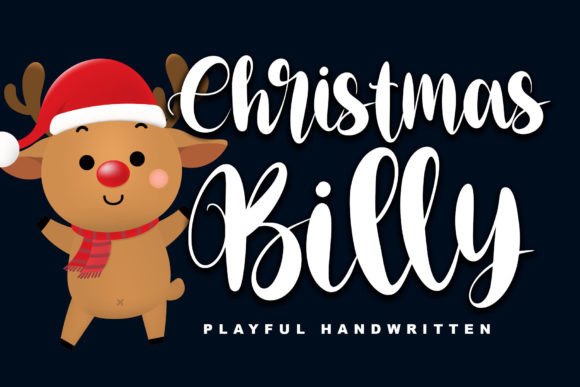
Unleash the Magic of Christmas with Christmas Billy: The Font That Captures the Essence of Yuletide Cheer!
In a world of monotonous fonts, Christmas Billy emerges as a captivating script font, skillfully crafted by the ingenious mind of thomasaradea, to bring the spirit of Christmas alive in your designs. Its enchanting allure commands attention, leaving an indelible mark on your audience. Dive into the realm of festive creativity with Christmas Billy, the font that ignites the Yuletide spark!
Immerse yourself in the whimsical charm of Christmas Billy, a font with a captivating personality. Its graceful strokes dance across your designs like snowflakes in a winter wonderland, adding a touch of magic to every letter and word. Experience the joy of creating exceptional designs that evoke the warmth and cheer of the Christmas season with effortless ease.
Step into the realm of unlimited possibilities with Christmas Billy, a font that defies creative boundaries. Its enchanting aura seamlessly blends with diverse design projects, from heartfelt Christmas cards to eye-catching social media posts, effortlessly elevating your creations to new heights of festive brilliance. With Christmas Billy as your creative companion, your designs will radiate the magic of the season, leaving a lasting impression on all who behold them.
Christmas Billy's versatility knows no bounds. Its captivating essence captivates with equal charm in large and small displays, making it an ideal choice for a wide array of projects. Its captivating presence adds a touch of sophistication to logos, website headers, and posters, while its playful nature brings life to invitations, greeting cards, and social media graphics. Experience the boundless potential of Christmas Billy as it seamlessly adapts to your creative vision, transforming ordinary designs into extraordinary works of art.
With Christmas Billy, you're not just downloading a font; you're inviting the spirit of Christmas into your creative arsenal. Its PUA encoding grants you effortless access to a treasure trove of glyphs, ensuring that your designs are imbued with the merriest of accents. Fall head over heels for Christmas Billy's boundless charm and unleash your creativity like never before, crafting designs that capture the essence of Christmas magic and spread festive cheer far and wide!